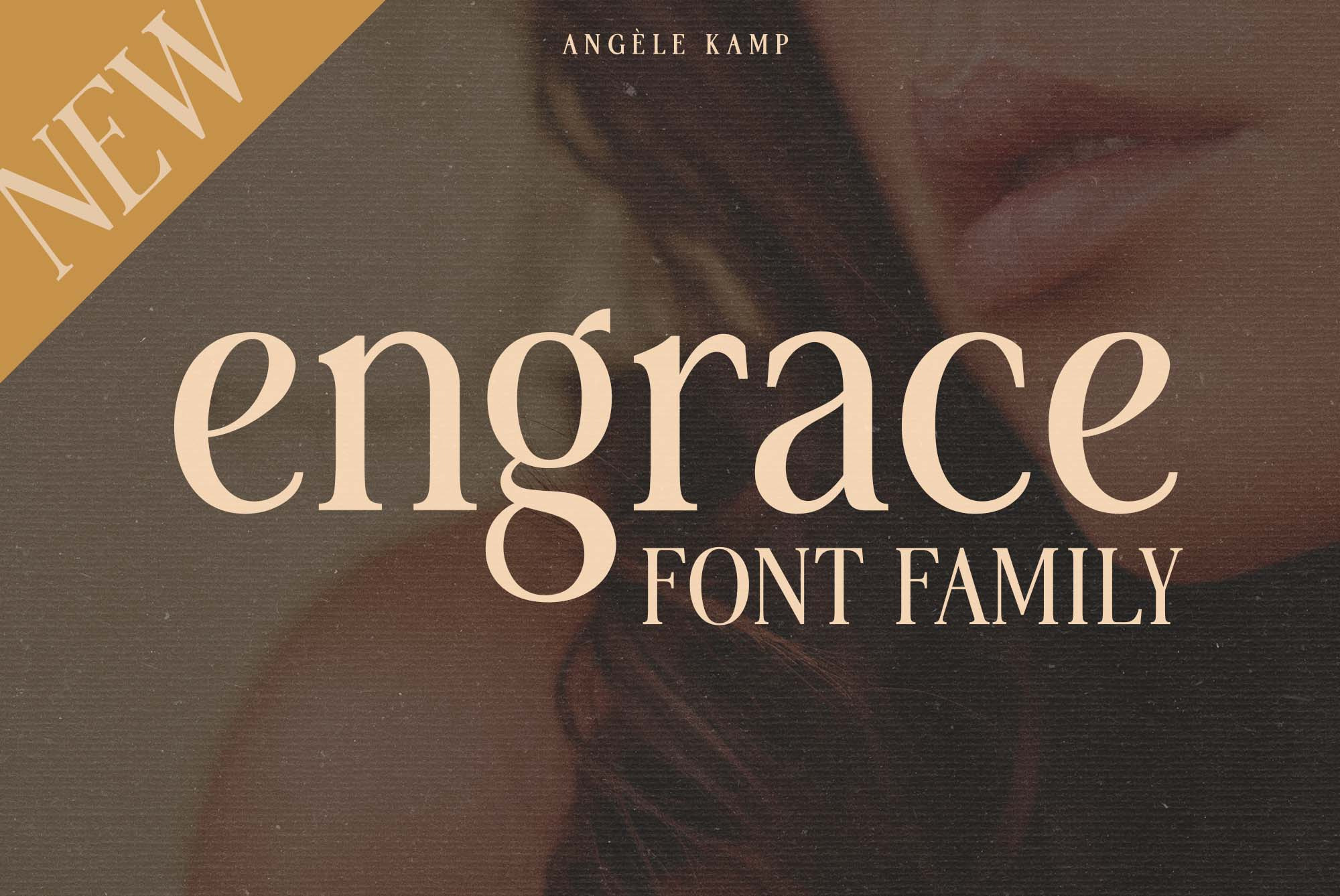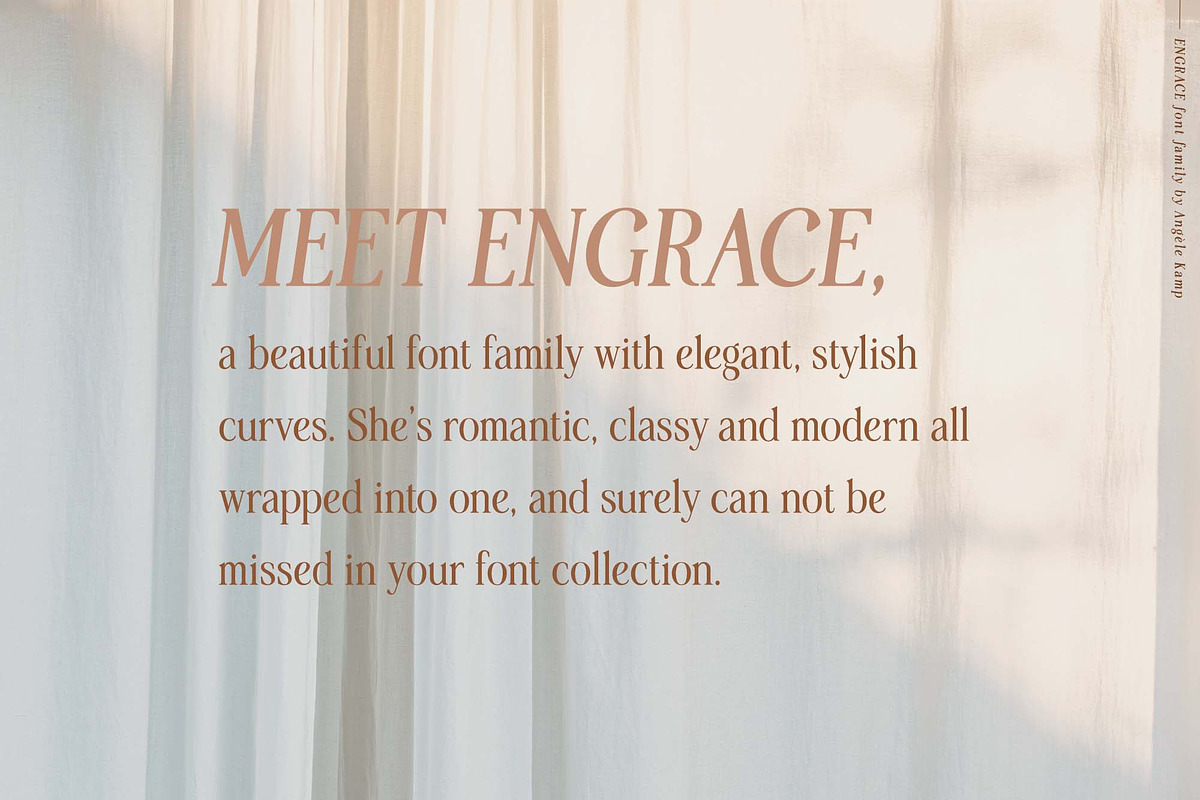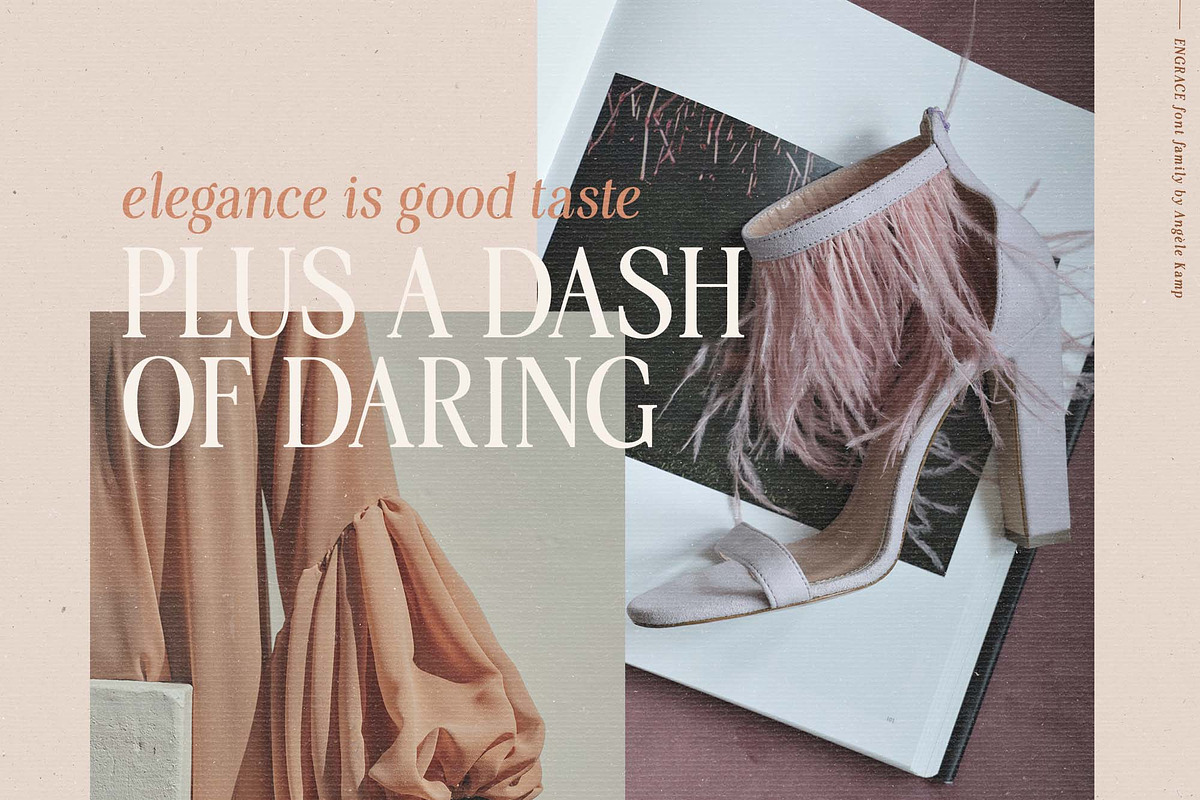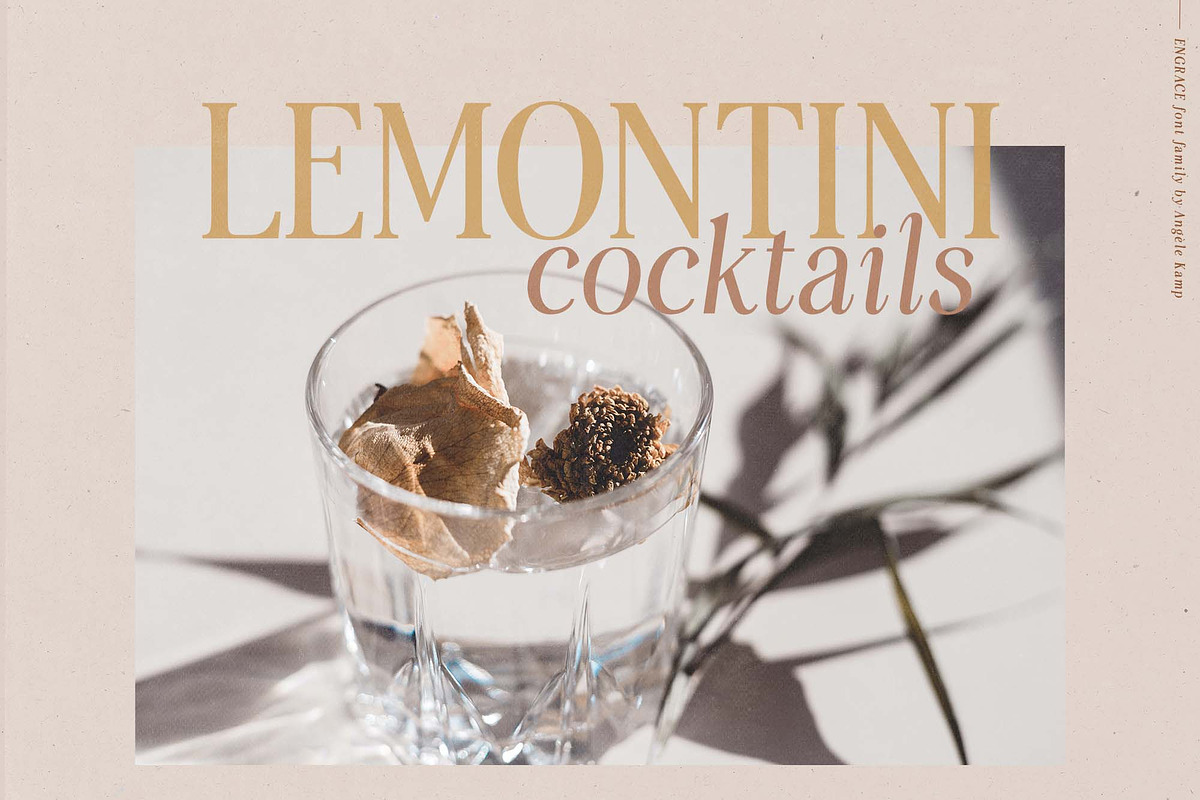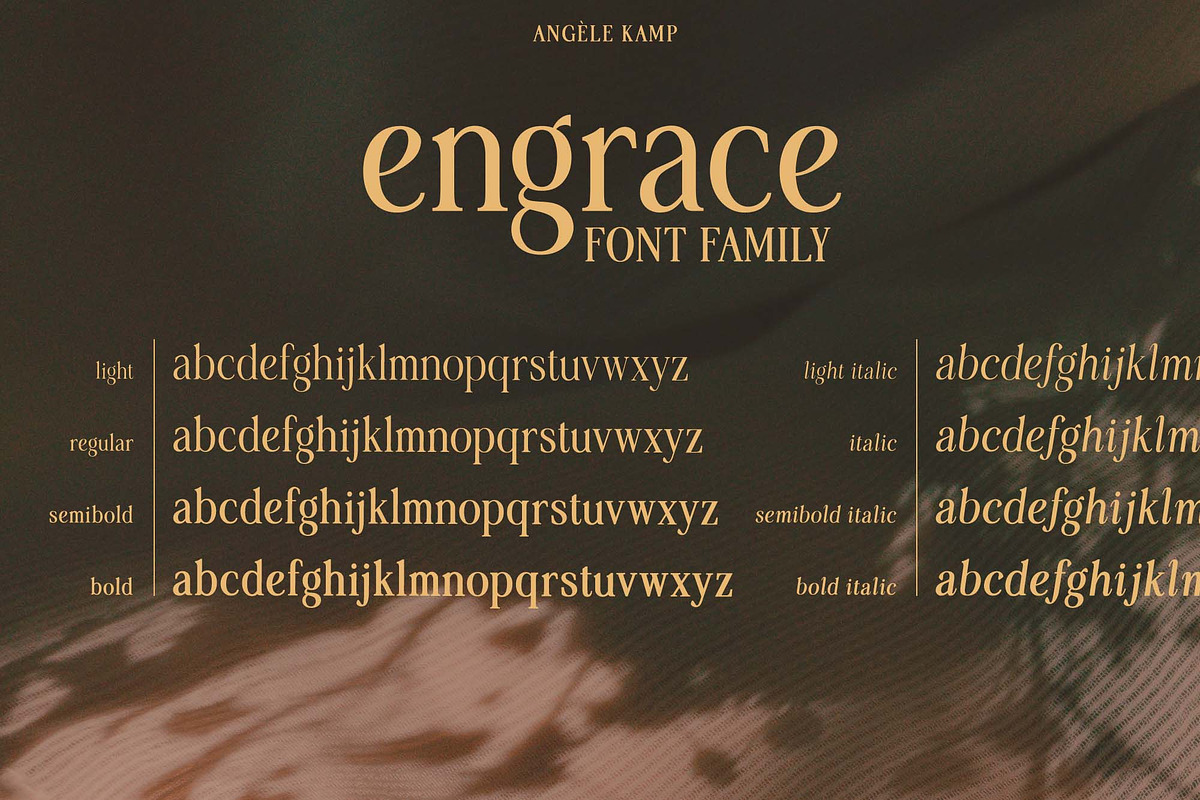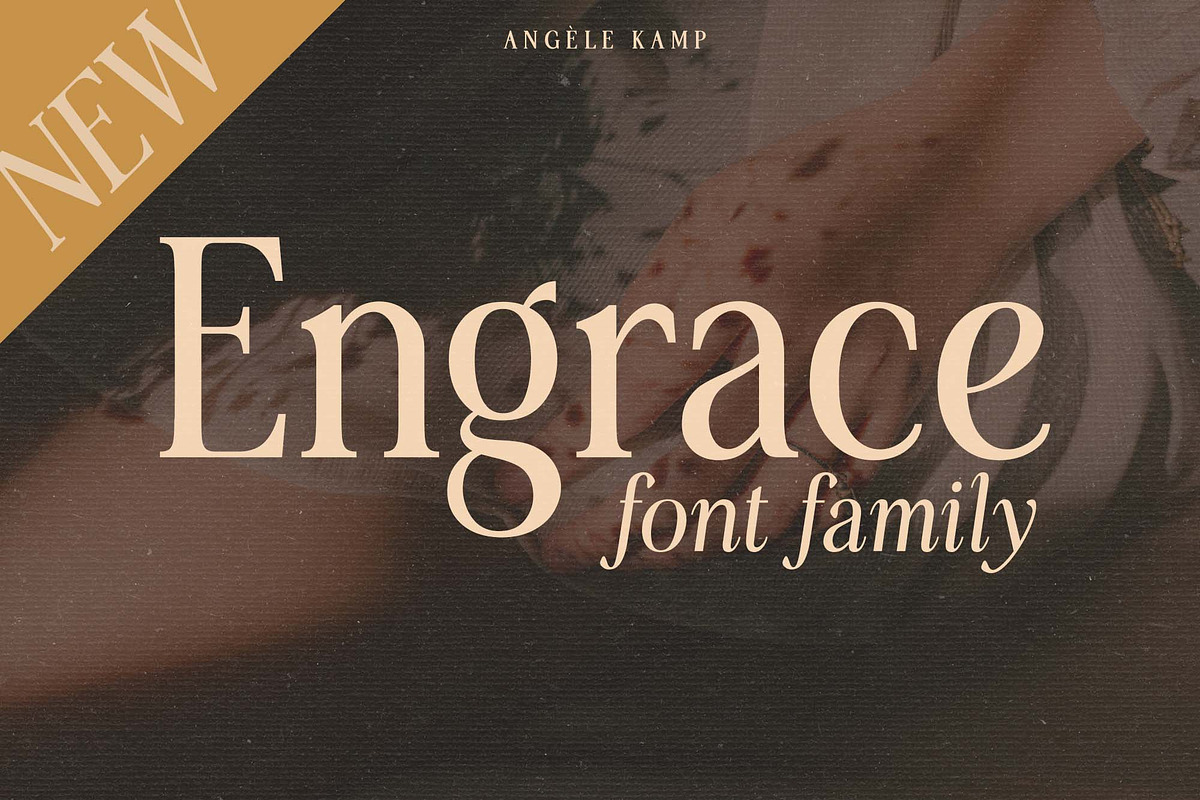
Engrace serif font family typeface
Meet Engrace, a serif font family with elegant & stylish curves. She’s romantic, classy and modern all wrapped into one, and surely can not be missed in your font collection.
- A font family of 8
- Engrace in 4 weights from Light to Bold (OTF, WOFF, Variable TTF)
- Engrace Italic in 4 weights from Light to Bold (OTF, WOFF, Variable TTF)
Engrace is a variable font family which means it comes in Regular & Italic in weights from light to bold. This font is not only versatile but the definition of elegance & class. It's a combination of luxury, and high fashion all rolled into one. Don't wait to add this luxury font family to your collection and start designing straight away.